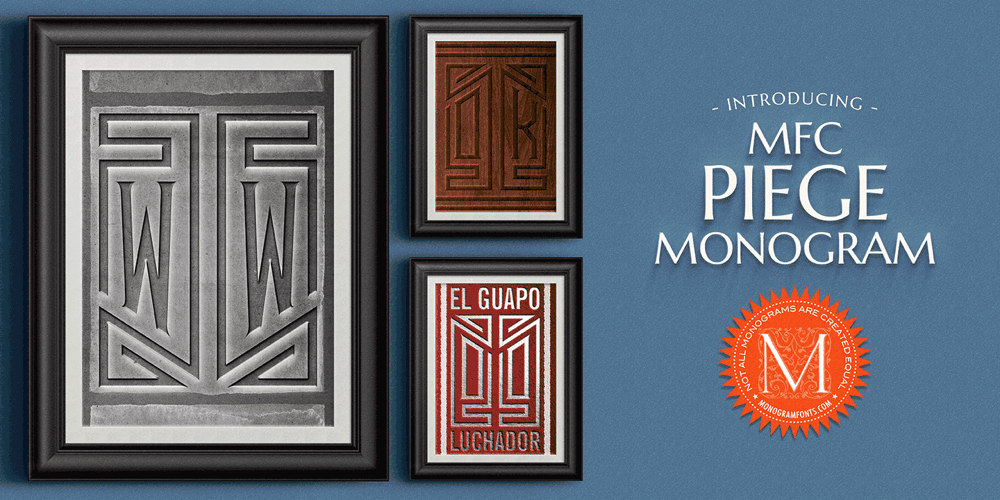
MFC Piege Monogram
MFC Piege Monogram font
MFC Piege Monogram Font Family was designed by Jim Lyles, Brian J. Bonislawsky and published by Monogram Fonts Co.. MFC Piege Monogram contains 6 styles and family package options. The source of inspiration for Piege Monogram is an ornament framed letterstyle from a vintage embroidery publication. Because of its unusual labyrinth style framework, it is aptly named “Piège”, or trap in French. Many monogram designs from the early 1900’s seem to fall into a two letter format which is either adorned or interwoven with framing styles. Piege Monogram offers a straightforward two letter monogram, and utilizes OpenType features that enable you to access an alternate style within a single font. Download and view the MFC Piege Monogram Guidebook if you would like to learn a little more.